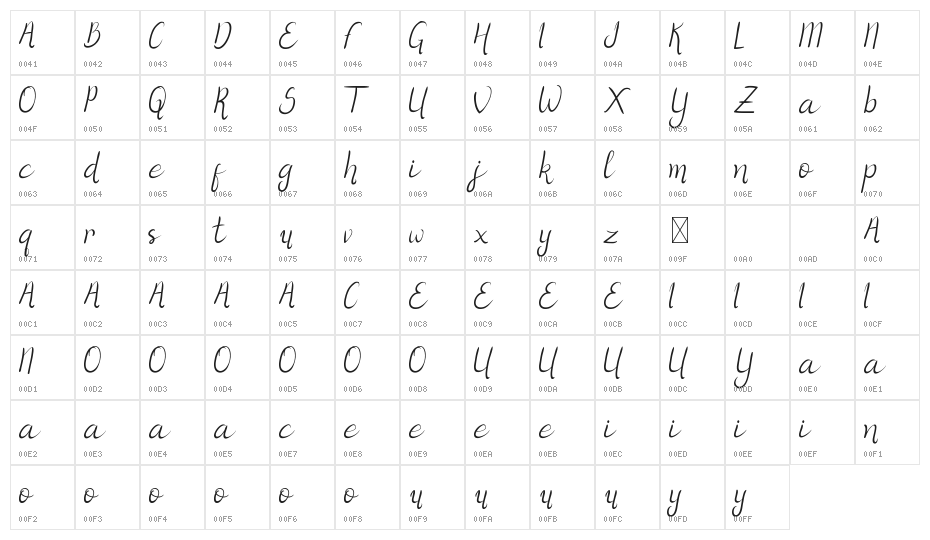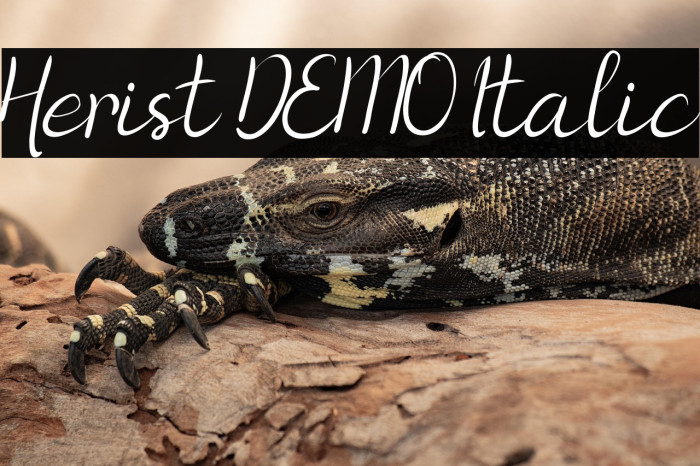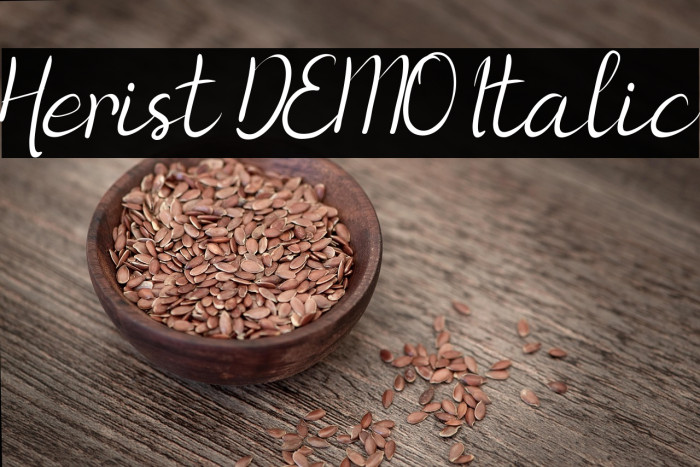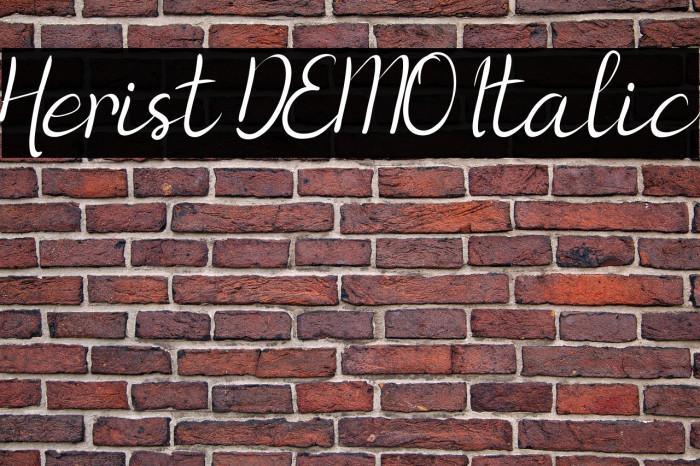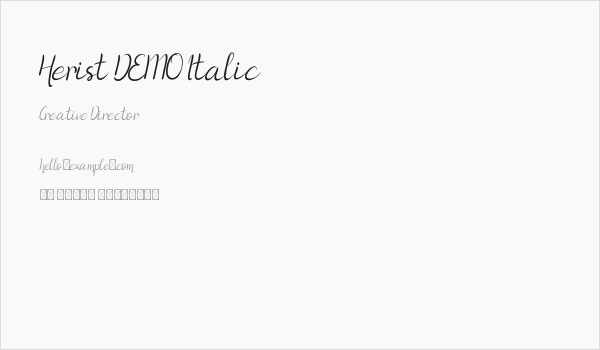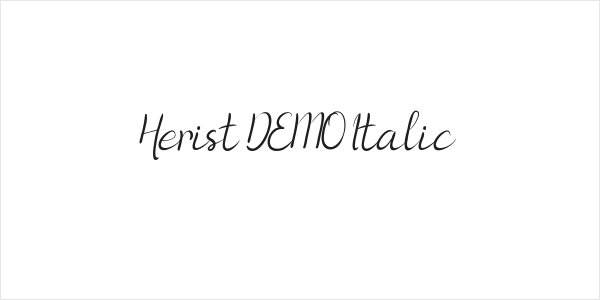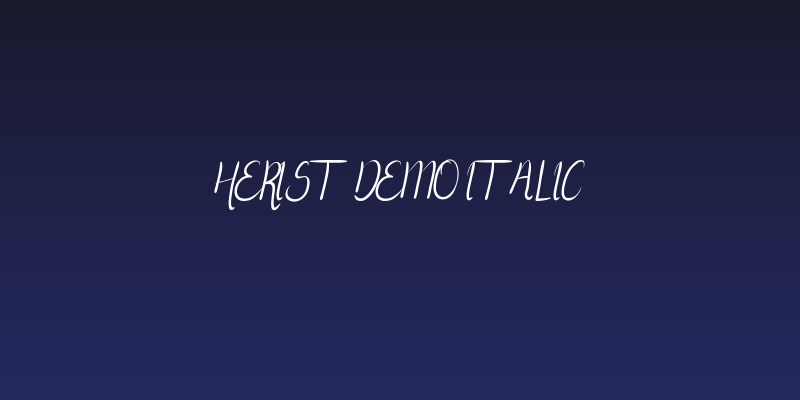
Herist DEMO Italic Font
Herist DEMO Italic Description
This font features a dynamic and flowing script style, characterized by its elegant and elongated letterforms. The strokes are smooth and continuous, giving it a handwritten appearance that exudes sophistication and grace. The uppercase letters are tall and slightly narrow, while the lowercase letters maintain a consistent flow with subtle variations in height and width. The overall design is both stylish and legible, making it suitable for a variety of creative applications. The italic slant adds a sense of movement and fluidity, enhancing its appeal for projects that require a touch of elegance.
| Overall Style | Elegant, Handwritten |
| Proposed Projects | Ideal for wedding invitations, elegant branding, personal stationery, and artistic posters. |